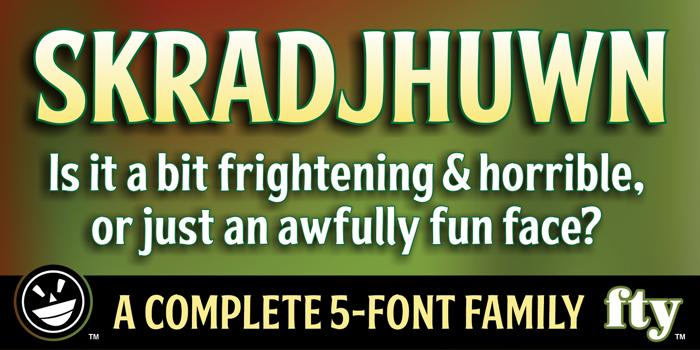
FTY SKRADJHUWN NCV Font
A fun face with a nice bounce, SKRADJHUWN arrives in 3 flavors to fill all your layout needs. For even more variety and a complete range of lowercase letters, get your hands on the commercial version of this family. It will meet all your weight requirements for those graphics that need to be lean and clean.